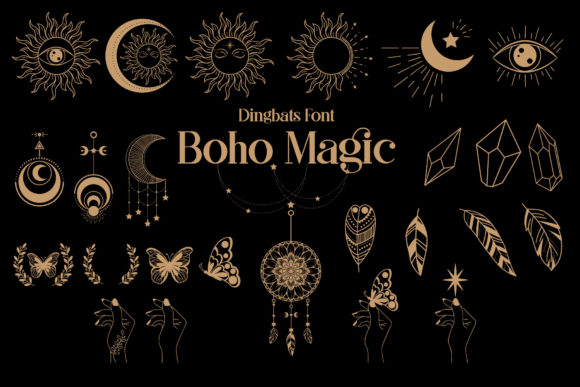
Introducing the Boho Magic Font - the perfect addition to any project looking for a touch of bohemian style. Created by Fox7, this unique dingbats font is perfect for anyone seeking a captivating and expressive design.
Boho Magic is a versatile font that can be used for a variety of purposes, from tattoos to wedding cards. This font is perfect for adding a touch of whimsy to your design projects.
The Boho Magic Font is perfect for any project that requires a creative flair. Whether you are designing invitations for a bohemian-style wedding or printing on t-shirts, bags, or mugs, this font is the perfect addition to your toolkit.
With its intricate and expressive designs, the Boho Magic Font is sure to captivate your audience. Use it to create stunning artwork, posters, or even branding materials. This font is perfect for anyone looking to add a touch of magic to their designs.